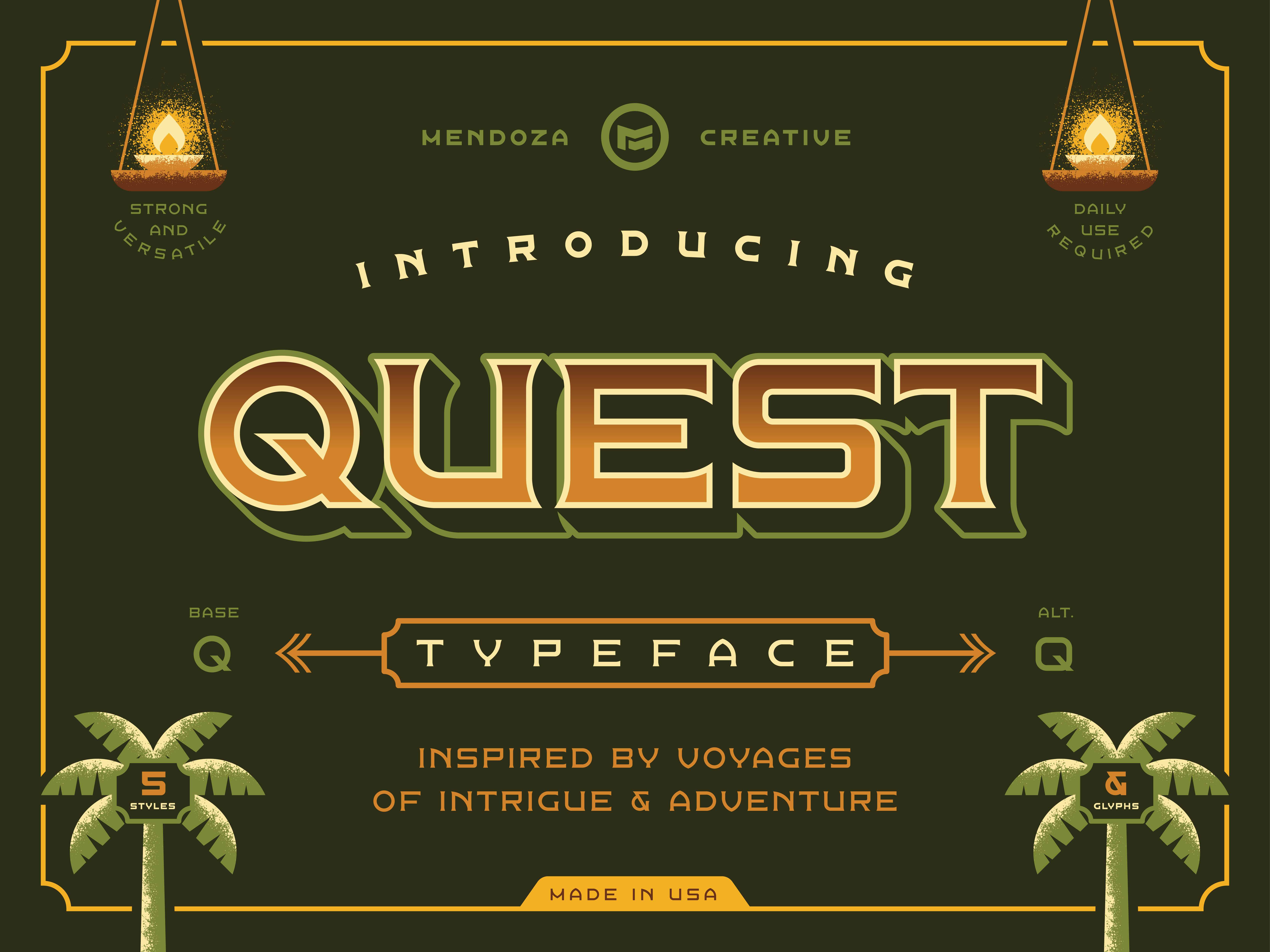
Quest Typeface
My friends, I proudly introduce QUEST, my very first font and typeface! Originally designed to be a single weight display font, QUEST quickly grew into 5 different styles to allow for greater versatility and usage. The inspiration for this font began back in April, right after the pandemic shut the world down. As I adjusted to the extreme change in our “normal” lifestyle, I realized how much I missed going to my favorite place in the world with my family, Disneyland.
To scratch that Disney itch, I began sketching out letterforms that reminded me of my favorite spot in the park, Adventureland! QUEST utilizes unique combinations of straight and round shapes to help convey a vintage yet progressive look and feel. After completing the first font style, I had a blast coming up with badges, icons and illustrations that created a world for the font to live in. QUEST is versatile enough to be shown off as a bold poster title, yet nimble and refined as smaller text or descriptions. This typeface locks up great with badges, apparel, type treatments, packaging and anything that yearns for adventure and exploration!
I am so proud and excited to finally get QUEST out into the world. I poured my heart and passion into creating this typeface and I hope you all enjoy it too! I can’t wait to see it utilized in your own projects and please tag me when you do!